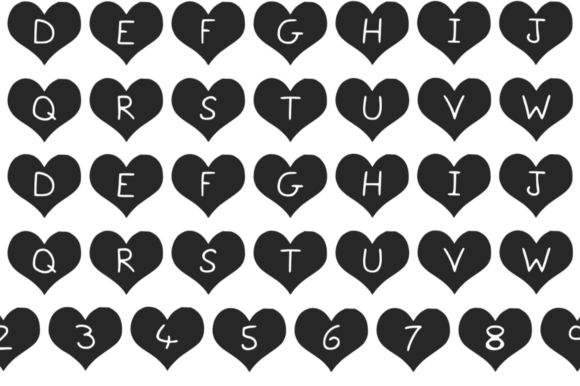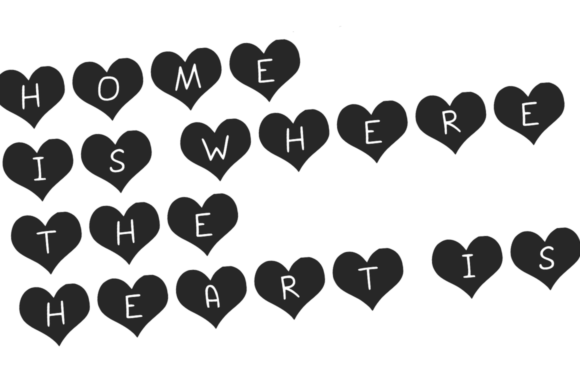
Introduction to Play Hearts Regular Font
Do you ever find yourself stuck on a creative project, searching for that perfect design element to bring it all together? As a designer, I’m sure you’ve experienced those moments where you’re pouring over font collections, searching for that one font that will give your design the extra oomph it needs. For me, it’s often a matter of finding a font that captures the essence of the project, and one font that has consistently done that for me is the lovely Play Hearts Regular Font.
This sweet, romantic font is a game-changer for any design project that requires a warm touch. With its delicate design, it’s perfect for Valentine’s Day creations, love letters, or any other project that needs a high-quality, free download with a transparent background. Whether you’re working on a design resource or a creative project, the Play Hearts Regular Font is sure to bring a touch of elegance and sophistication to your work.
Key Features of Play Hearts Regular Font
- High-quality design resource ideal for creative projects, such as graphic design, digital art, and web design.
- Includes a single font style with a playful, modern aesthetic suitable for a wide range of applications.
- Unique characteristics include rounded edges, clean lines, and a friendly tone that adds a touch of whimsy to any design.
Honest Review: Play Hearts Regular Font
I recently stumbled upon the Play Hearts Regular Font while searching for a unique design resource for my latest creative project. I was blown away by its high quality and versatility.
What works well: ✨ The font is perfect for any project that requires a playful and whimsical touch. Its transparent background makes it easy to layer over other design elements, and its clean lines ensure that it remains legible even at smaller font sizes. I’ve used it for everything from social media graphics to wedding invitations.
What doesn’t work well: ⚠️ While the font is great for most projects, it may not be the best choice for formal or professional designs. The playful nature of the font can come across as unprofessional in certain contexts.
Overall, I’m really impressed with the Play Hearts Regular Font. It’s a great free download that’s perfect for designers looking to add some personality to their projects. With its high quality and versatility, it’s definitely a design resource I’ll be using again and again.
- Perfect for creative projects that require a playful touch
- High quality and versatile
How to Use Play Hearts Regular Font
The Play Hearts Regular Font is a high-quality design resource ideal for various creative projects. Its transparent background makes it versatile and easy to use in different applications.
Tips for Getting the Most Out of Play Hearts Regular Font
Use the font in conjunction with other design elements to create visually appealing graphics. Experiment with different font sizes and styles to add depth and interest to your design.
Common Use Cases for Play Hearts Regular Font
The Play Hearts Regular Font is ideal for use in logos, branding materials, social media posts, presentations, and documents. Its high-quality design and transparent background make it a versatile resource for various creative projects.
Alternatives to Play Hearts Regular Font
Open Sans is a highly legible and modern sans-serif font that is ideal for creative projects requiring a clean and sophisticated design. It is a free download and comes in various weights and styles, making it a versatile design resource. When to use: body text, headings, and titles. It is a great alternative to Play Hearts Regular Font as it offers a more neutral and professional look.
What are the technical details of the Play Hearts Regular Font?
The Play Hearts Regular Font is a TrueType font, which means it can be used on both Windows and Mac operating systems. It has a high-resolution design, making it suitable for print materials and high-resolution digital displays. The font contains a range of characters, including uppercase and lowercase letters, numbers, and punctuation marks.